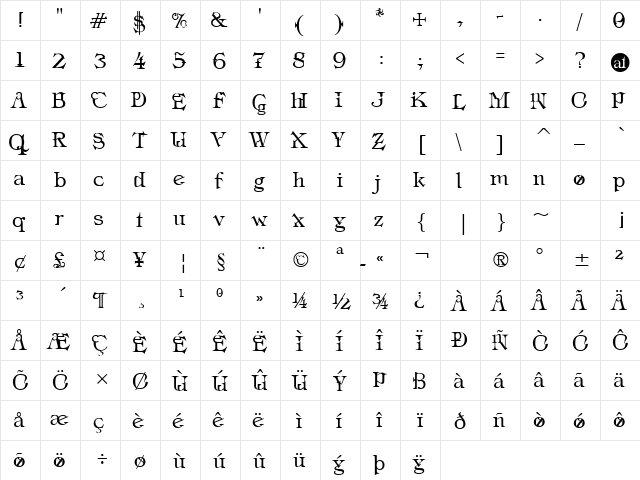
Industrial Schizophrenic Regular
Design Context for Industrial Schizophrenic Typeface
Industrial Schizophrenic is a composed and adaptable typeface that performs quietly and consistently across a wide range of design contexts.